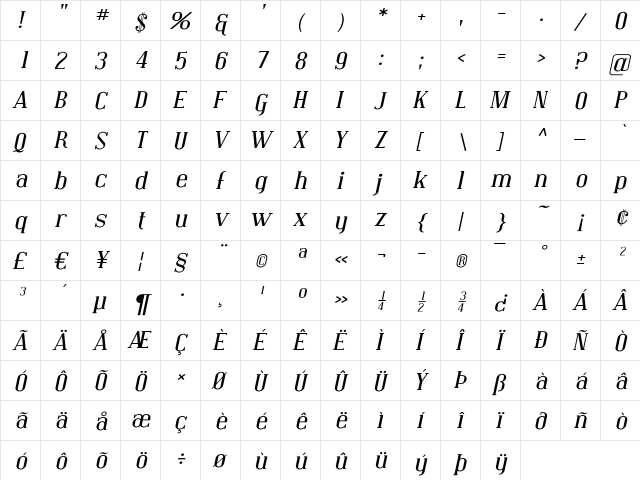
Covington Exp Italic
| Designer | Derek Vogelpohl |
Design Context for Covington Exp Typeface
Covington Exp takes a measured approach to typography — its balanced proportions and neutral character make it a reliable workhorse for both digital and print work. Its italic angle brings a sense of urgency and motion to the letterforms.
Pro Tip: Use Covington Exp for emphasis, pull quotes, and subheadings where its slanted energy can add rhythm to the layout.